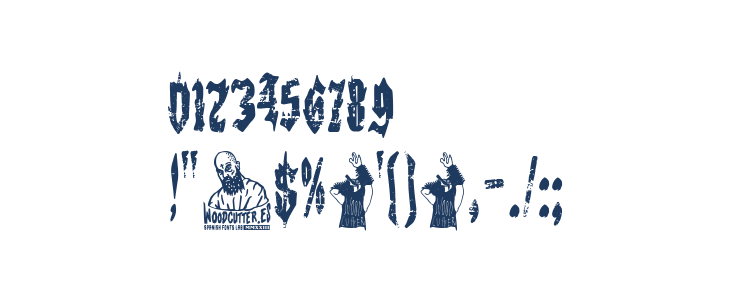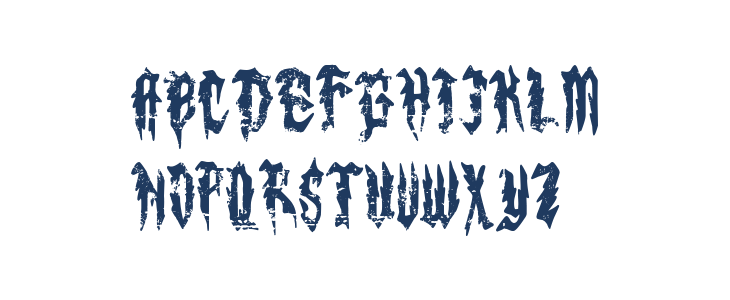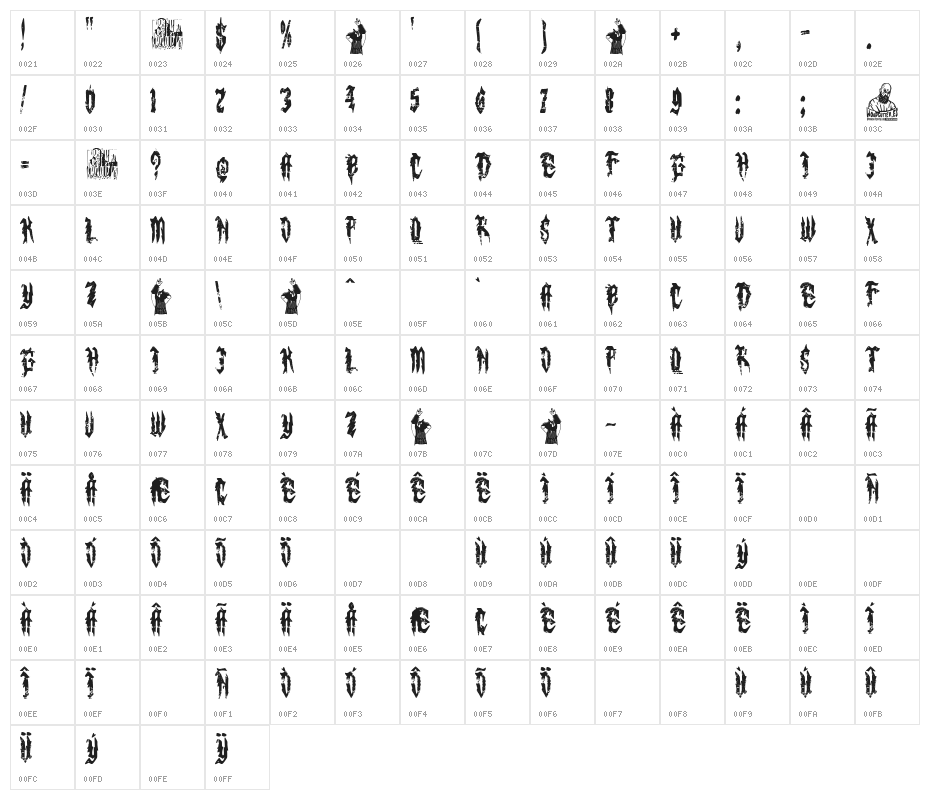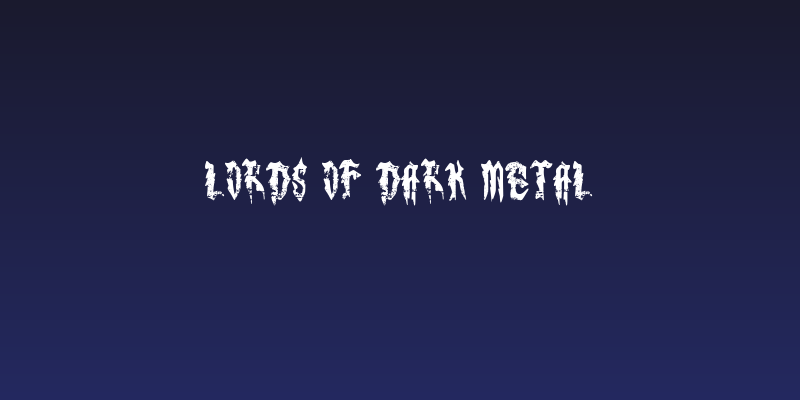
Lords of Dark Metal Font
Lords of Dark Metal Description
A highly decorative, distressed display font with sharp, jagged edges and heavy texture, evoking a dark, grungy, and aggressive aesthetic. The letterforms are bold and angular, with irregular splatters and rough outlines that create a chaotic, intense visual impact. The font is all uppercase, with consistent height and dramatic vertical strokes.
| Overall Style | Decorative, Grunge, Aggressive, Dark |
| Use Case | Logos, Headlines, Posters, Album covers |
| Proposed Projects | Band logos, metal album covers, horror movie posters, event flyers, merchandise for alternative or heavy music genres. |